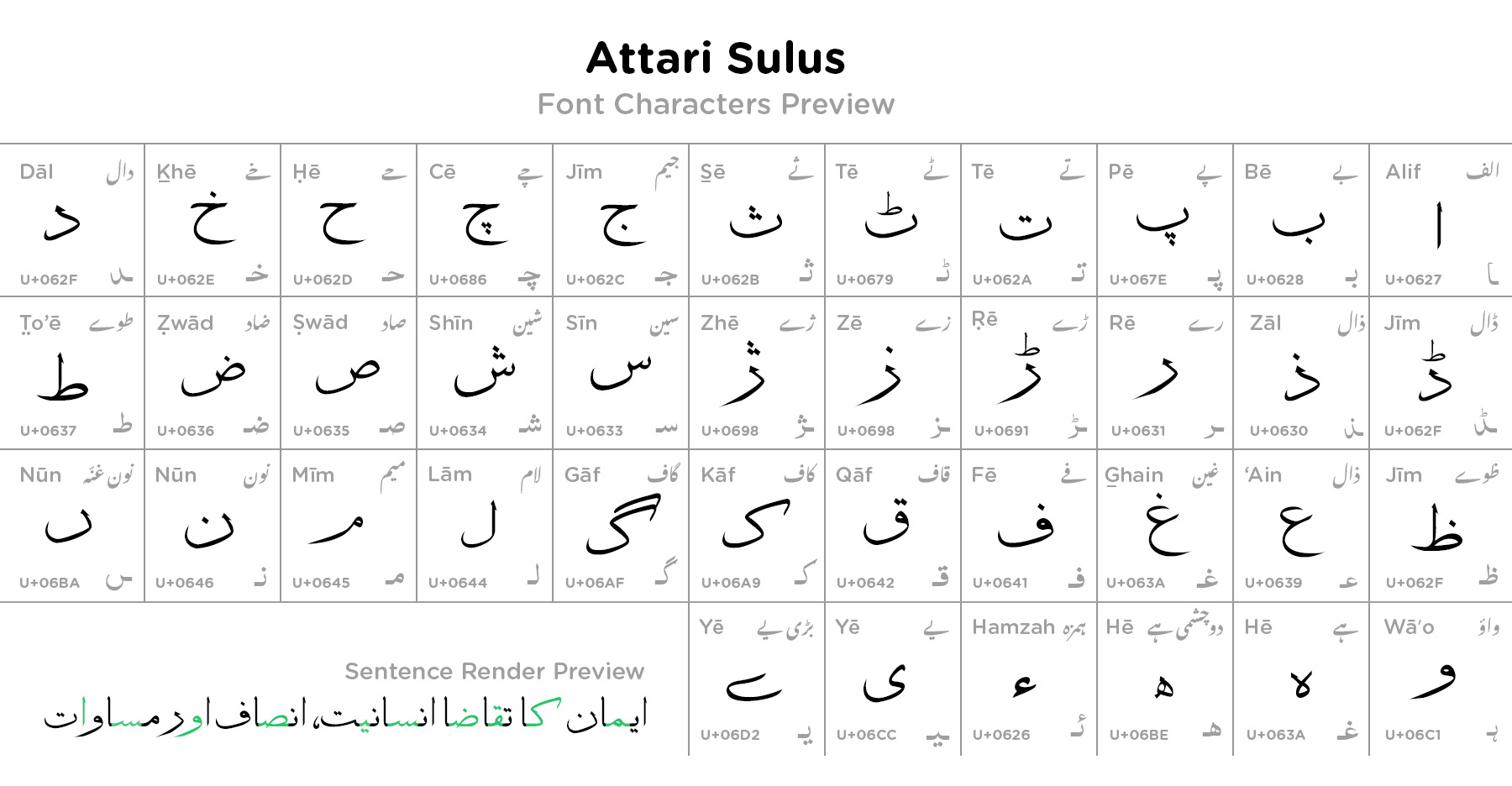
Attari Sulus, crafted by designer Attari Qadri from Faisalabad, Pakistan, on January 30, 2016, is a decorative Qalam writing font inspired by the elegant Thuluth script. With its sharp angles and long, pointy edges, this font exudes sophistication and refinement, reminiscent of traditional calligraphy. The font features 215 characters and 336 glyphs, and it also supports Arabic, Latin, Urdu, Sindhi, and more languages, ensuring its versatility across various applications.
While its strong stroke and varying thickness, akin to the flow of an ink pen, contribute to its visual appeal, readability may be compromised at smaller sizes due to text condensation. Nonetheless, Attari Sulus’ Thuluth-inspired design showcases elongated characters, thick strokes, elaborate flourishes, and intricate interlacing, creating a captivating aesthetic. Ideal for logos, branding, calligraphy, Quran writing, book covers, and more, the font adds a touch of elegance to any project. Its compatibility with Unicode blocks such as Basic Latin, Arabic, and General Punctuation further enhances its usability across various platforms. It is a versatile choice for designers seeking to make a statement with their typography.